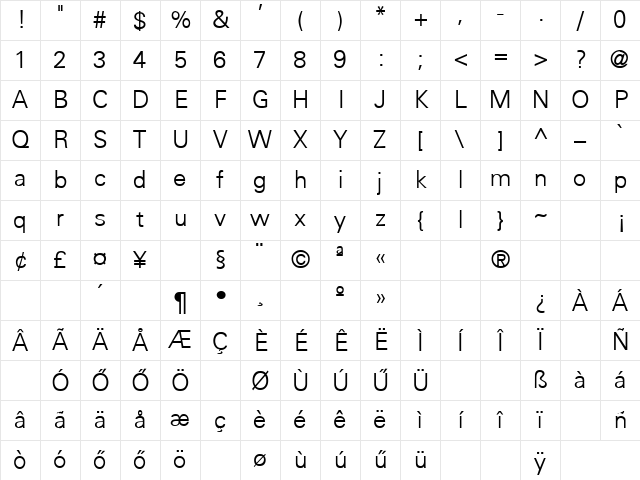
H_BLD22 Regular
Design Context for H_BLD22
H_BLD22 is a composed and adaptable typeface that performs quietly and consistently across a wide range of design contexts.